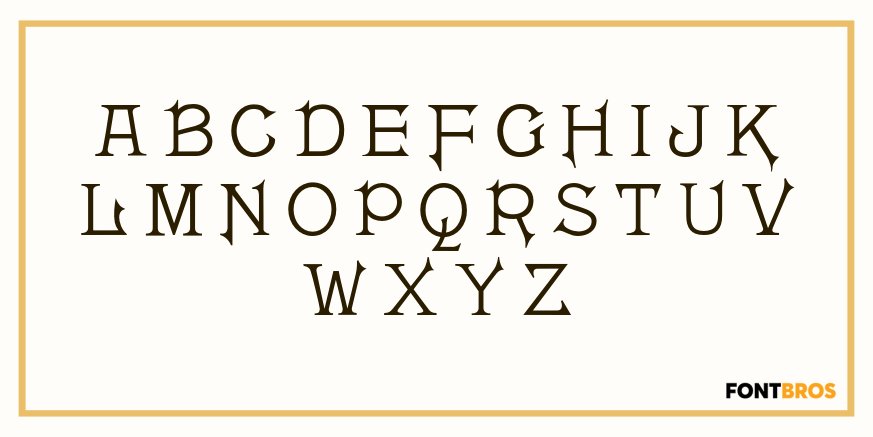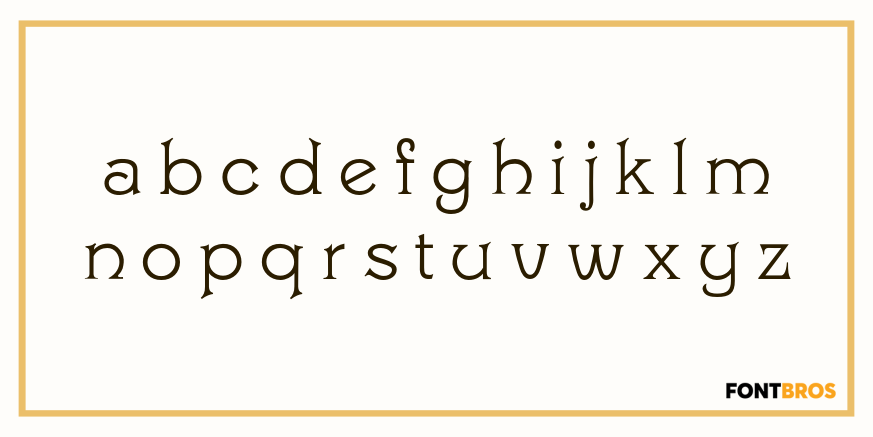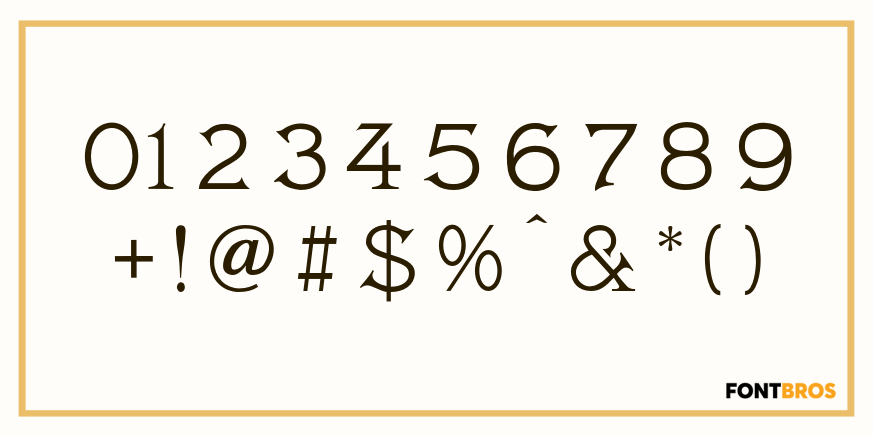
Webster
An ideal face for blocks of copy when you want them to look old. Very readable.
Another faithful rendition of the original from the Keystone foundry. Actually several foundries worldwide offered this font.
Webster by Solotype